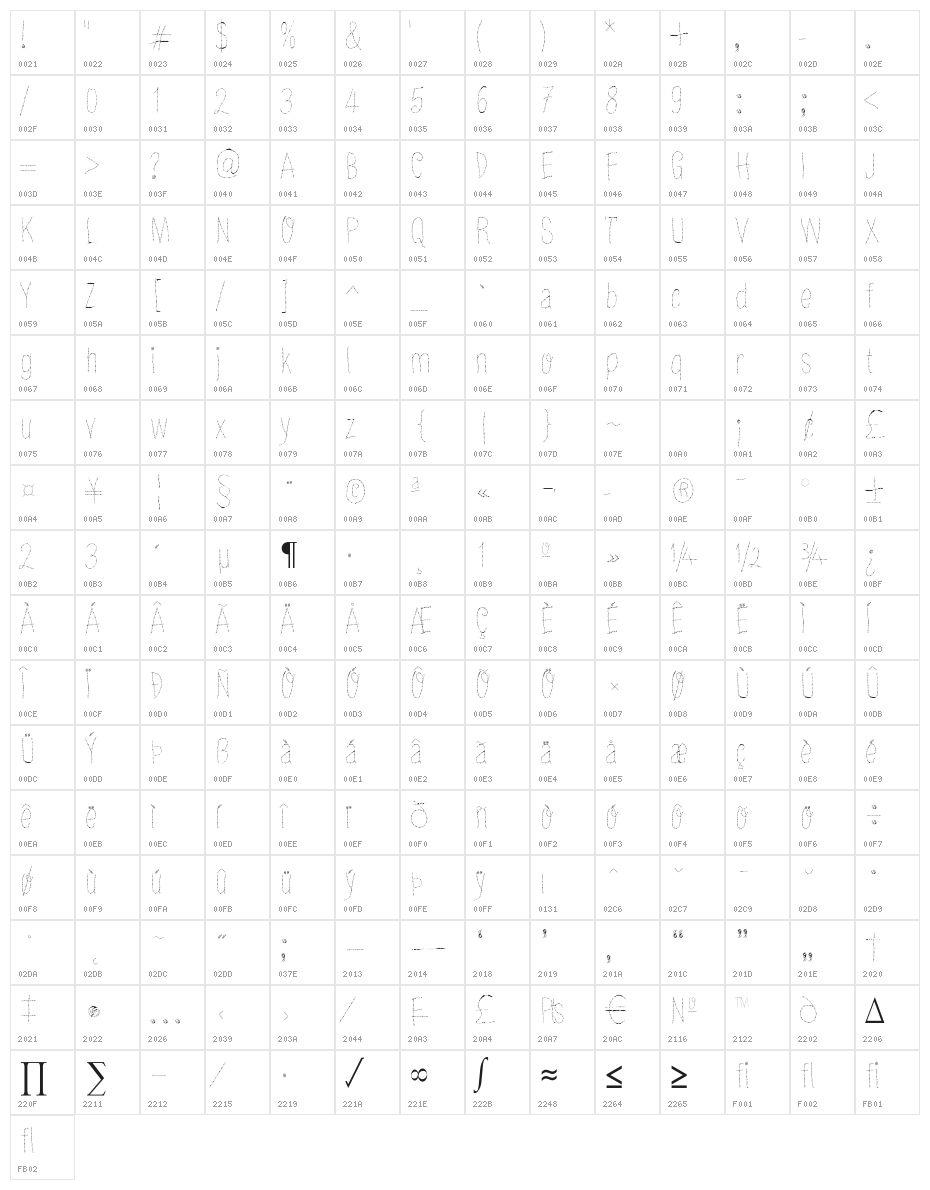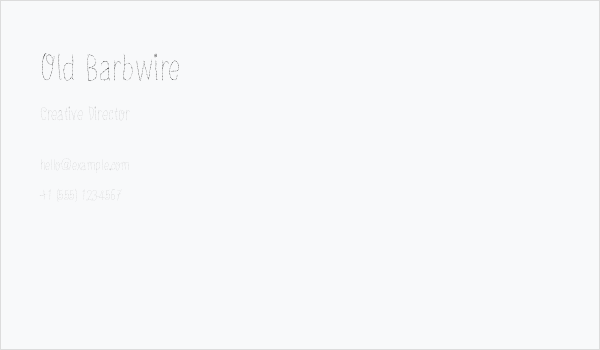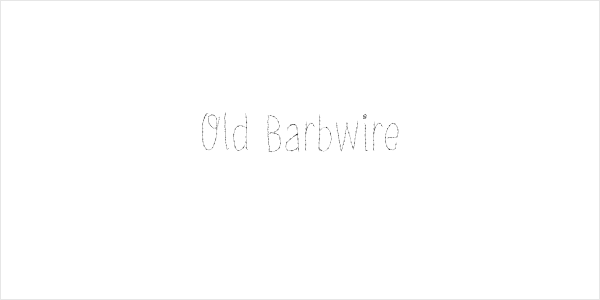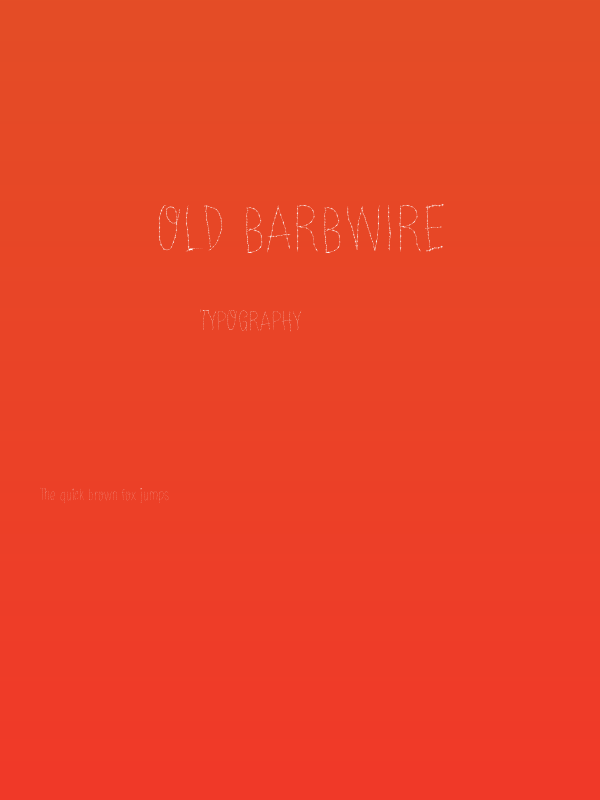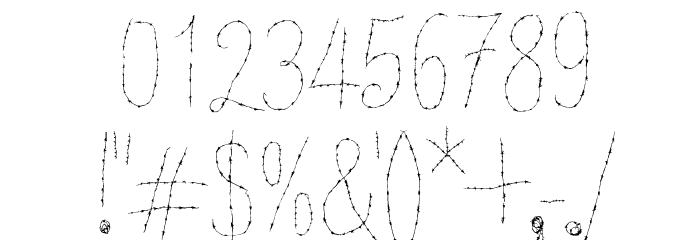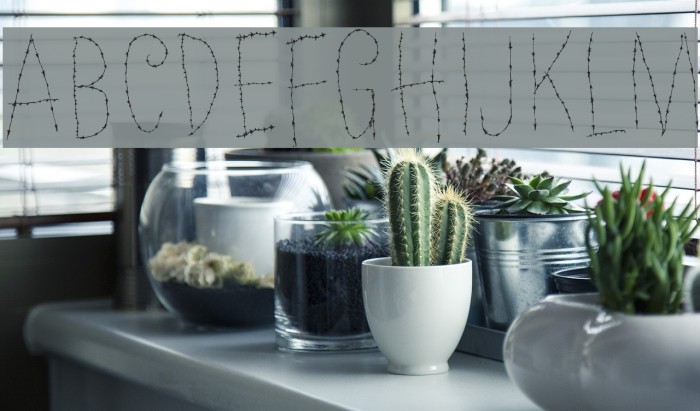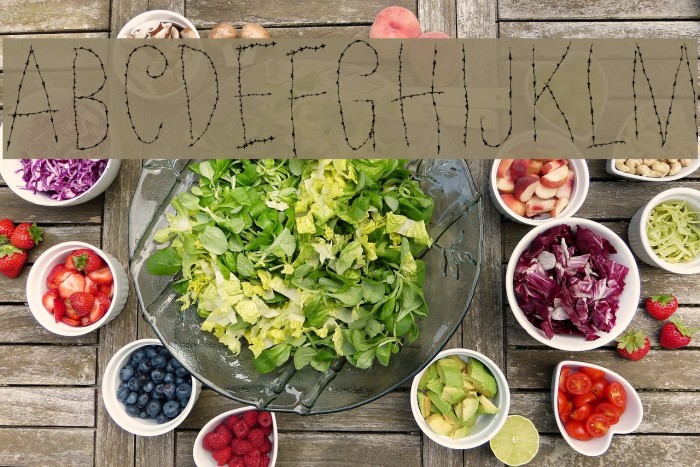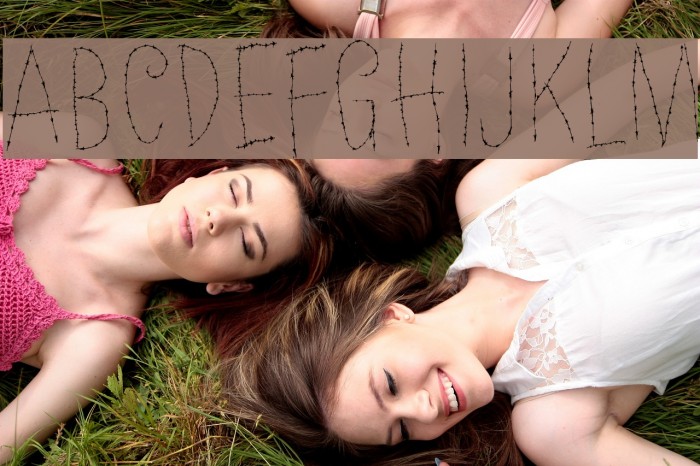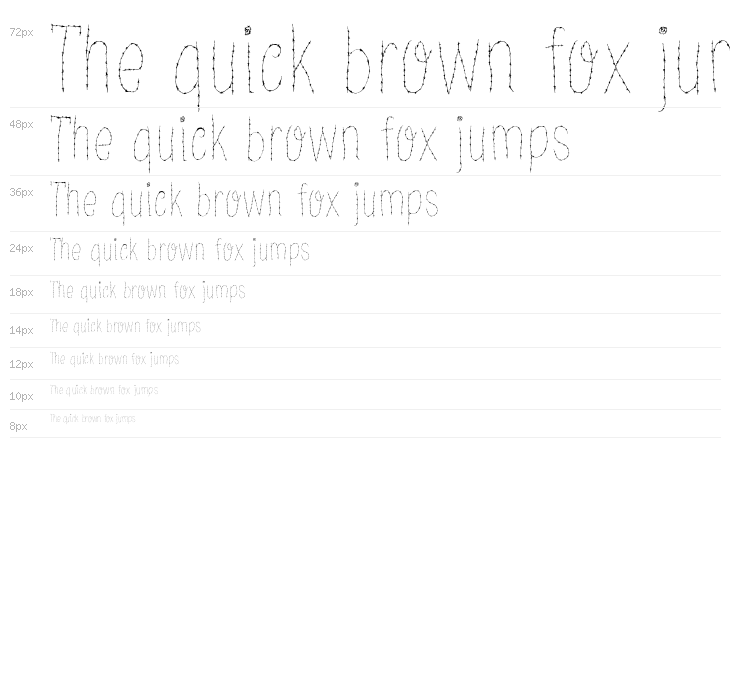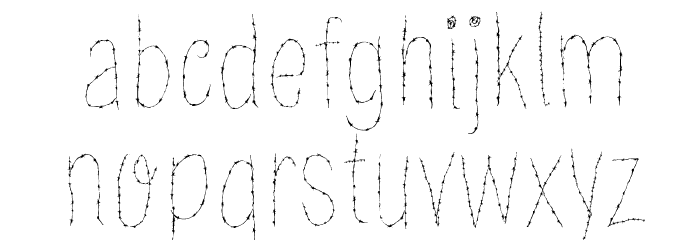
Old Barbwire Font
Old Barbwire Description
This font features a unique and rugged design, reminiscent of barbed wire. Each character is constructed with a series of sharp, pointed lines that mimic the appearance of twisted metal. The uppercase and lowercase letters maintain a consistent style, with a slightly irregular and hand-drawn quality that adds to its rustic charm. The numerals and special characters follow the same aesthetic, ensuring a cohesive look across all text. This font's distinctive style makes it ideal for projects that require a touch of edginess or a Western theme.
| Overall Style | Rustic, Edgy |
| Proposed Projects | Ideal for Western-themed designs, edgy posters, album covers, and branding that requires a rustic or rebellious touch. |